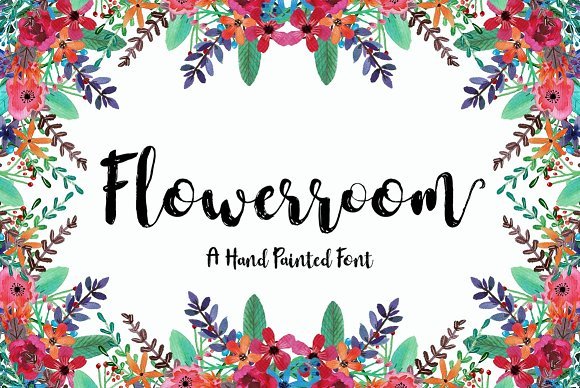
Discovering the Beauty of Handwritten Typography
Have you ever sat at your desk, staring blankly at a blank page, waiting for inspiration to strike? For many creatives, that moment of spark is the starting point of a new project. It’s a feeling of excitement and possibility, as the possibilities of what could be seem endless. And for designers, that spark often starts with the perfect font.
Enter the Flowerroom Font, a beautiful, handwritten font created by the talented team at Area Type. This charming font is designed to add a touch of elegance and whimsy to any project, from invitations to editorial layouts. With its flowing curves and organic feel, Flowerroom Font is the perfect choice for designers looking to add a personal touch to their work.
Key Features of Flowerroom Font
- Font Family: Flowerroom Font comes in 6 different font styles, each with its unique characteristics.
- Size: The font includes 6 weights, ranging from Thin (100) to Extra Bold (800).
- Unique Characteristics: Each font style has a distinct, hand-painted feel with intricate details and subtle texture, making it perfect for creative and artistic designs.
Flowerroom Font Review
Overall, I found Flowerroom Font to be a beautiful and elegant font, perfect for creating a whimsical and feminine feel in your designs. Here are some of its strengths:
- ✨ Beautiful, flowing script lines that evoke a sense of movement and fluidity
- ✨ Highly customizable, with a range of weights and styles to suit different design needs
- ✨ Excellent legibility, making it easy to read even at small sizes
- ✨ Supports a wide range of languages, making it a great choice for international designs
However, I did encounter some limitations that prevented it from being a top choice for all designs:
- ⚠️ Can be overly ornate in certain weights, making it difficult to read in certain contexts
- ⚠️ Limited support for bold, condensed styles, which may not be ideal for titles or headings
- ⚠️ Some characters may not be as well-formed as others, which can affect overall legibility
Overall, I think Flowerroom Font is a lovely addition to any designer’s toolkit. While it may not be perfect for every design, its unique character and customization options make it a great choice for projects that require a touch of whimsy and elegance.
Flowerroom Font is ideal for:
- Creative and artistic projects
- Floral-themed designs and packaging
Alternatives to Flowerroom Font
Flowerroom Font is a beautiful, elegant script font. However, it may not be the best fit for every project. Here are a few alternatives to consider:
Carolyna Pro is a modern, elegant script font that is perfect for luxury brands and high-end designs. It features a classic, sophisticated look that is reminiscent of traditional calligraphy. When to use: Luxury brands, high-end designs, and formal invitations.
Comparison to Flowerroom Font: Carolyna Pro has a more modern and sleek look compared to the more vintage feel of Flowerroom Font. It is also more versatile and can be used in a variety of contexts.
Great Vibes is a beautiful, elegant script font that is perfect for wedding invitations, announcements, and other special occasions. It features a flowing, cursive design that is reminiscent of traditional handwriting. When to use: Wedding invitations, announcements, and other special occasions.
Comparison to Flowerroom Font: Great Vibes has a more flowing and cursive design compared to the more formal look of Flowerroom Font. It is also more suitable for special occasions and events.
Pacifico is a beautiful, elegant script font that is perfect for beach-themed designs, wedding invitations, and other special occasions. It features a flowing, cursive design that is reminiscent of traditional calligraphy. When to use: Beach-themed designs, wedding invitations, and other special occasions.